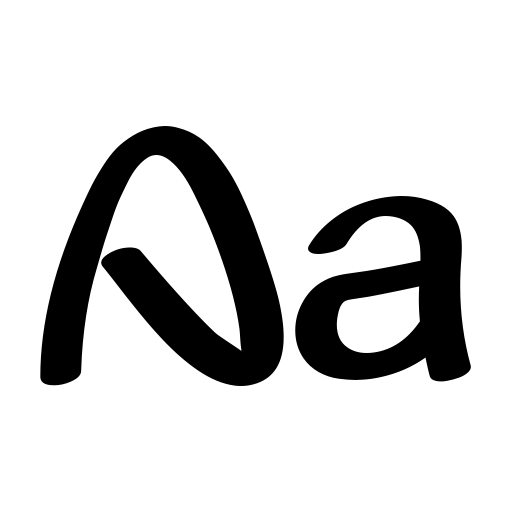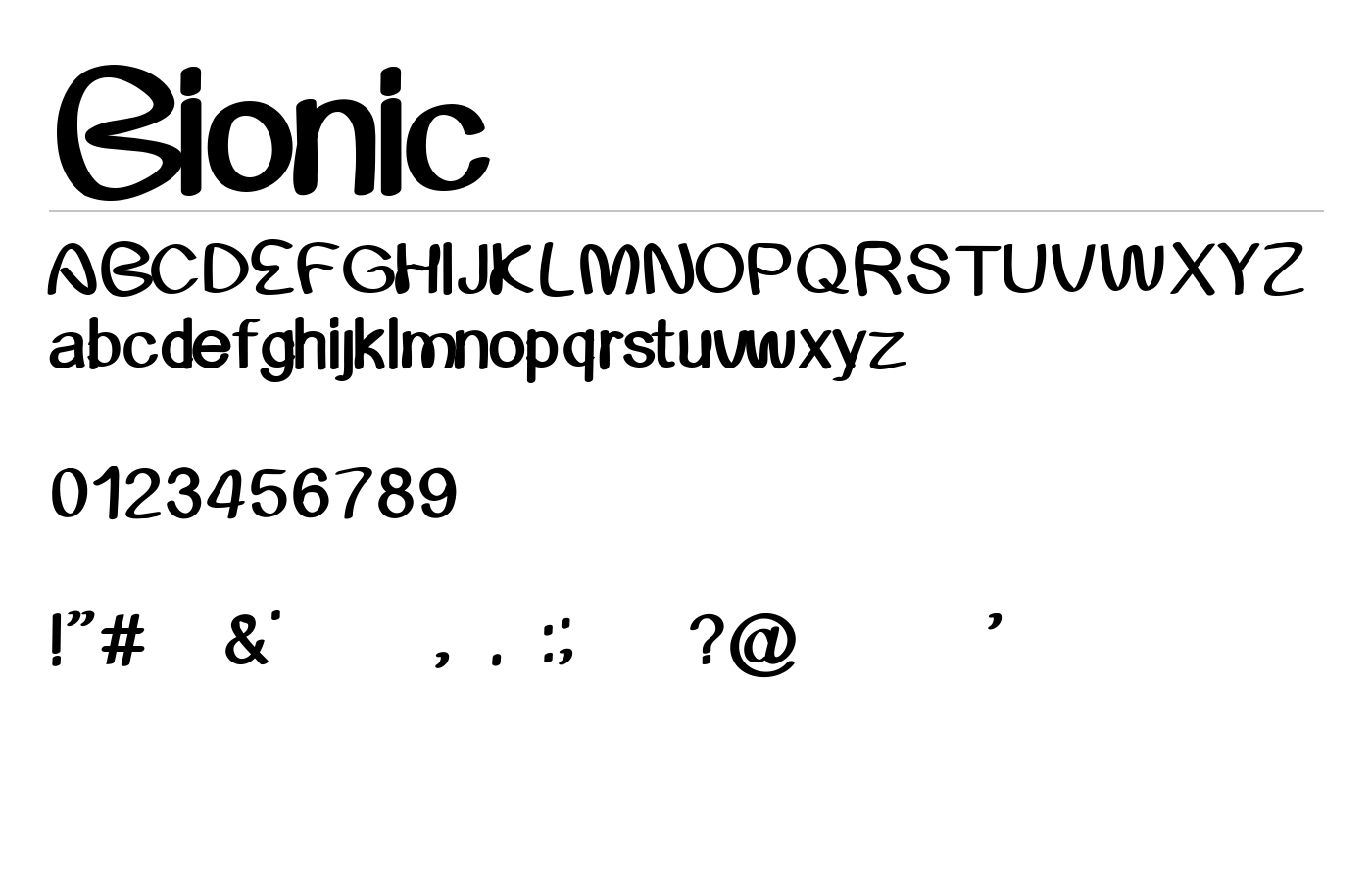
Bionic is a playful and quirky sans serif font with a distinct handwritten feel, characterized by its rounded, slightly irregular letterforms and medium x-height. Its informal, friendly style makes it ideal for creative, fun projects like children’s books, casual branding, or eye-catching headlines where a unique, approachable vibe is desired. This font works well in designs that aim to feel energetic and personable rather than formal or traditional.
Bionic Font
About Bionic Font